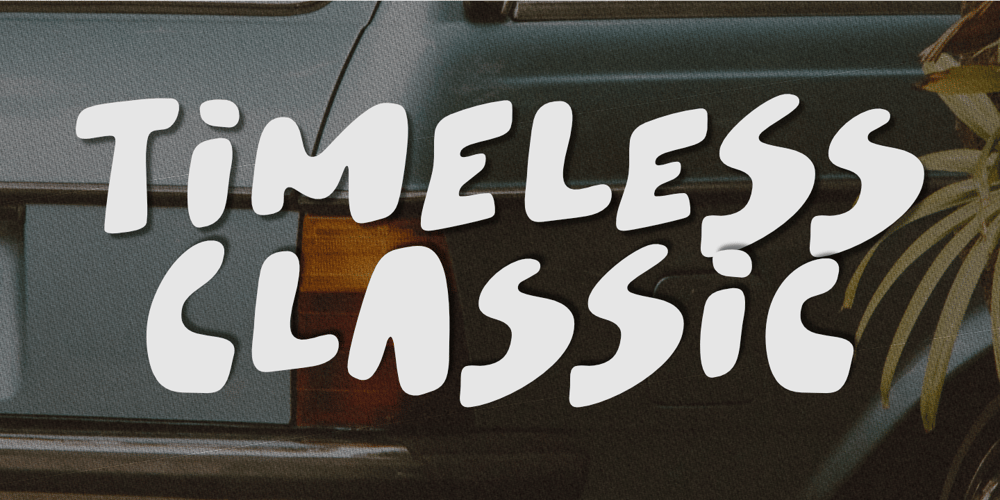
Timeless Classic
Timeless Classic font
Timeless Classic Font Family was designed by Aldy Sidik and published by Epiclinez. Timeless Classic contains 1 styles and family package options. Introducing our fun and playful Timeless Classic typeface! Suitable for creating professional-looking headlines, titles, posters – or any other creative project. With its bold look and hand-drawn vibe, this font is sure to make a statement. Say goodbye to confusing and boring messages and say hello to clarity and simplicity with this timeless classic.Features : Basic Latin Uppercase and Lowercase Numbers, symbols, and punctuations Multilingual Support. Fully accessible without additional design software Simple Installations works on PC & Mac Thank You